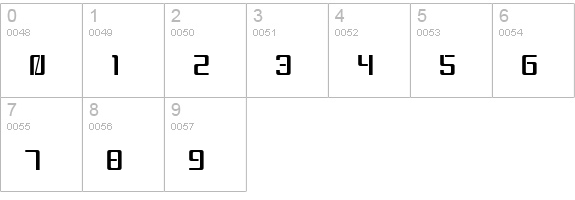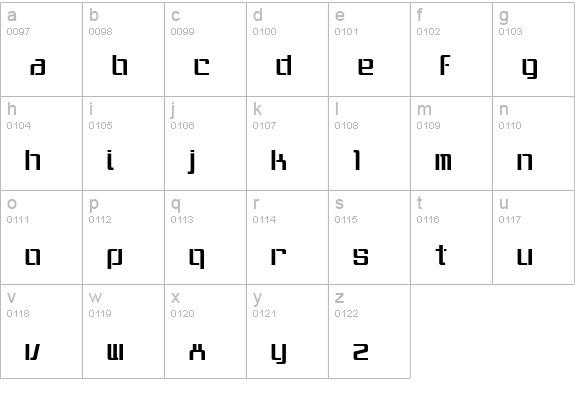
It wasn't me Font Details
Introducing the captivating and versatile It wasn't me font, an absolute must-have for any design enthusiast! This incredible typeface effortlessly combines elegance and playfulness, making it perfect for a wide range of creative projects. With its unique and eye-catching letterforms, It wasn't me font adds a touch of whimsy to any design. Whether you're working on a logo, branding, packaging, invitations, or social media graphics, this font will instantly elevate your creations to the next level. But what makes It wasn't me font even more remarkable is that it is freely available to download at FontsMarket.com. Yes, you read that right - this stunning font can be yours without spending a dime! FontsMarket.com is a trusted source for high-quality fonts, and they are generously offering It wasn't me font for free. So why wait? Unleash your creativity and make a statement with It wasn't me font. Download it today from FontsMarket.com and start transforming your designs into unforgettable masterpieces. Whether you're a professional designer or a hobbyist, this font is sure to become your go-to choice for all your creative endeavors. Don't miss out on this incredible opportunity to own an extraordinary font, completely free of charge. Get It wasn't me font now and let your imagination soar!